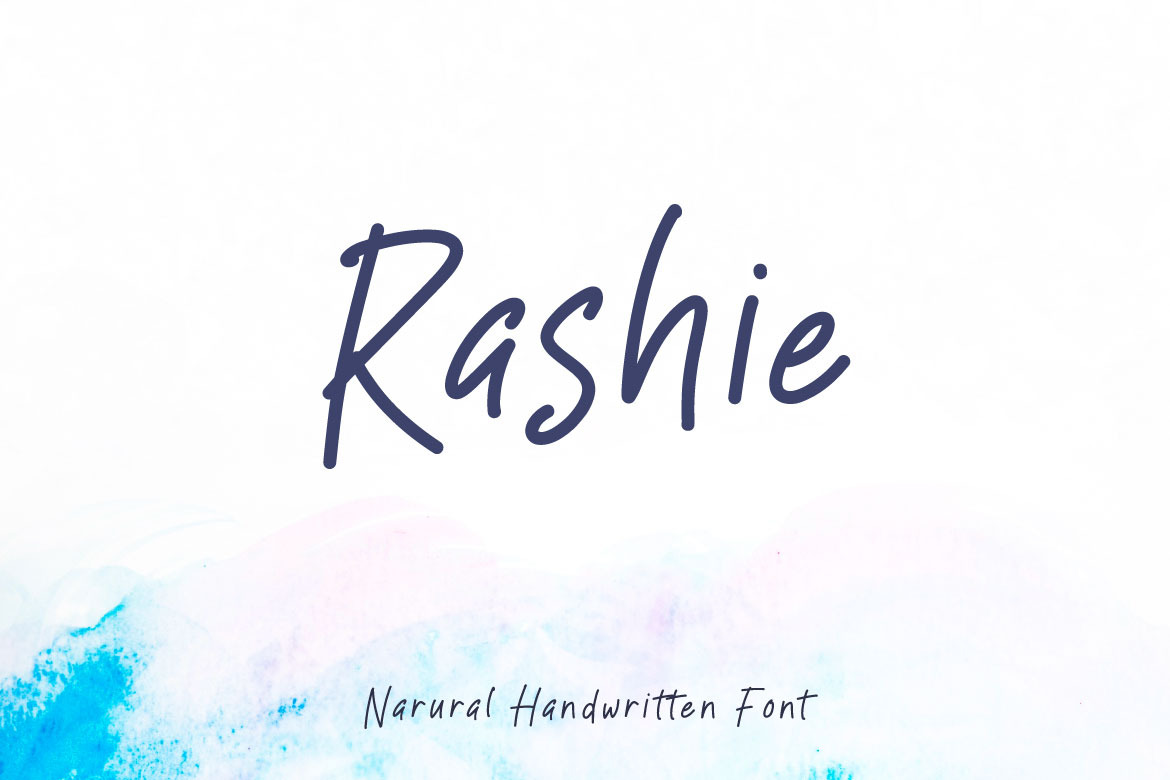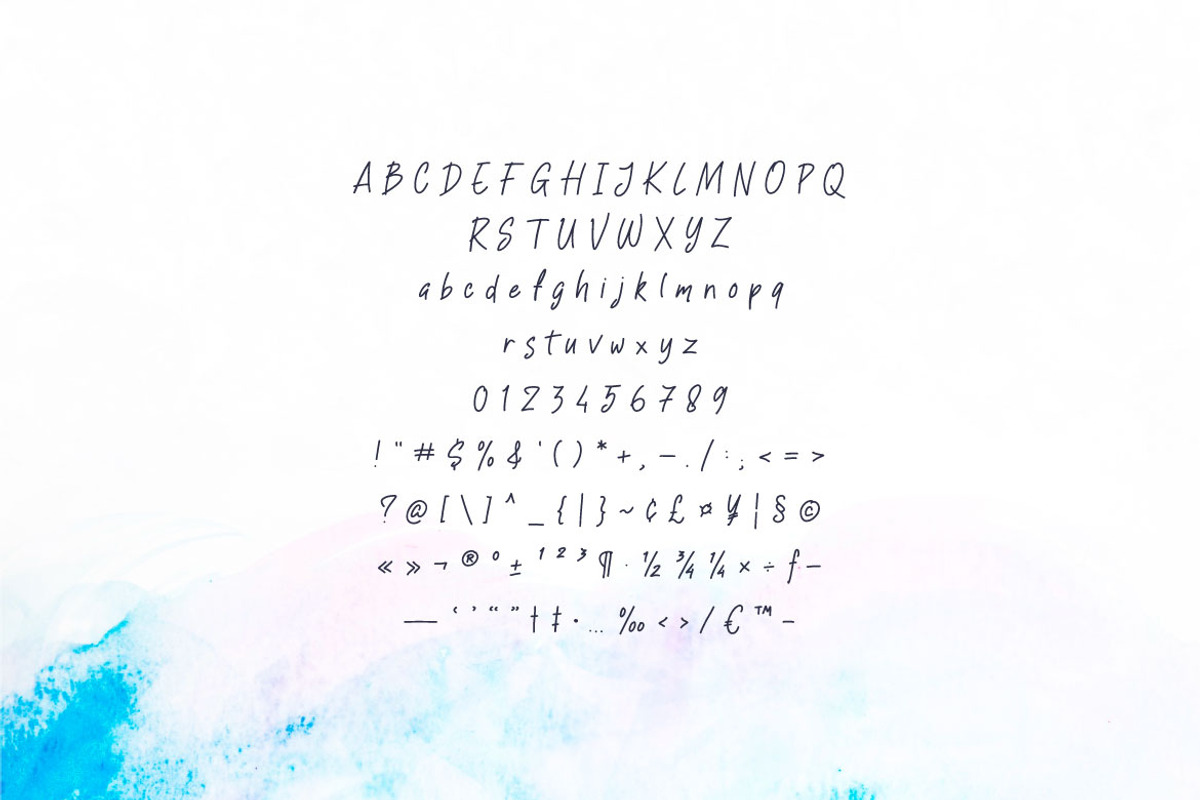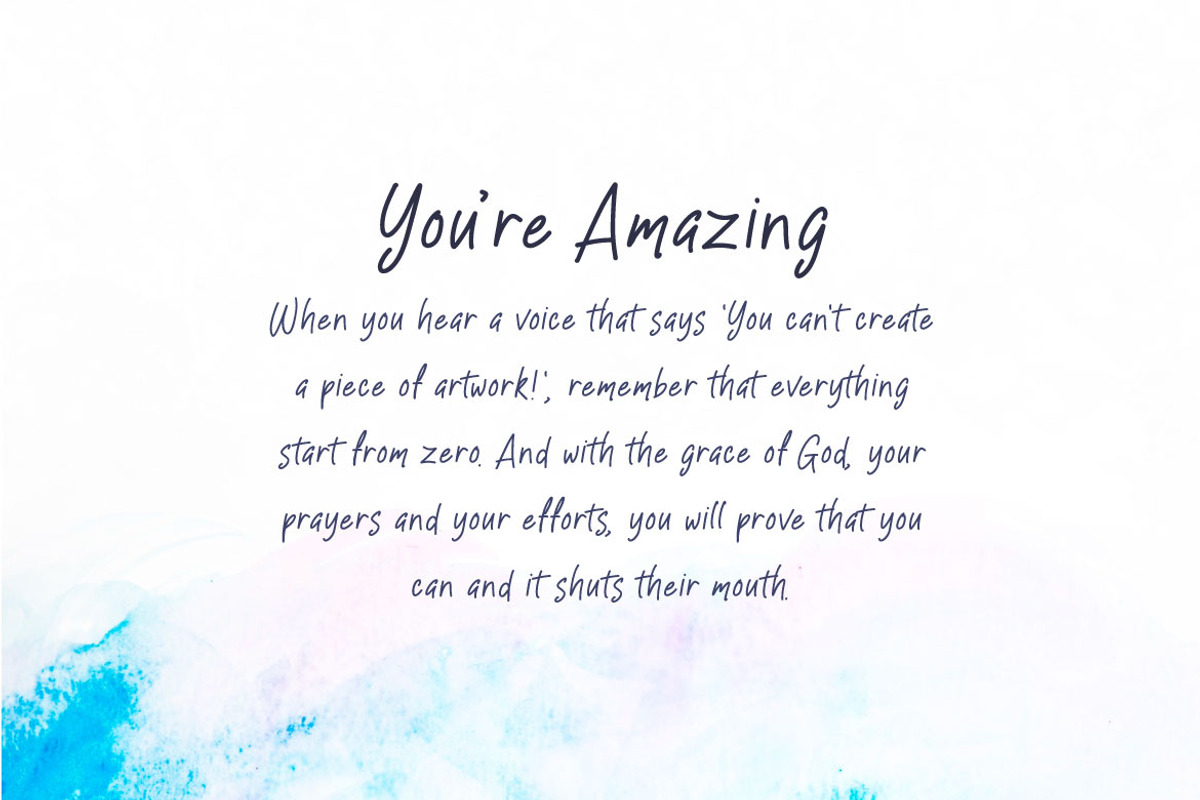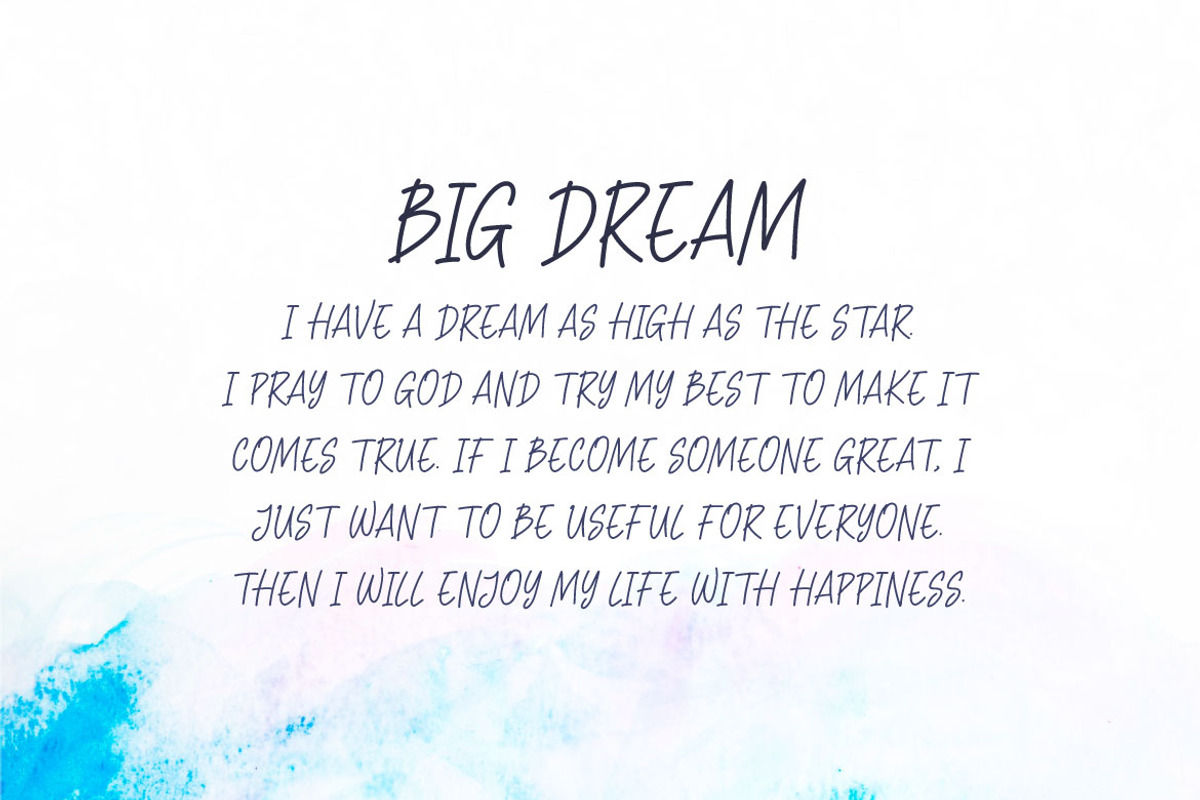
Rashie - Script Signature Font
Hello! Rashie is a minimalist handwritten script font. Rashie can be used in any works such as novel, book title, advertisement, social media content, logo and many more.